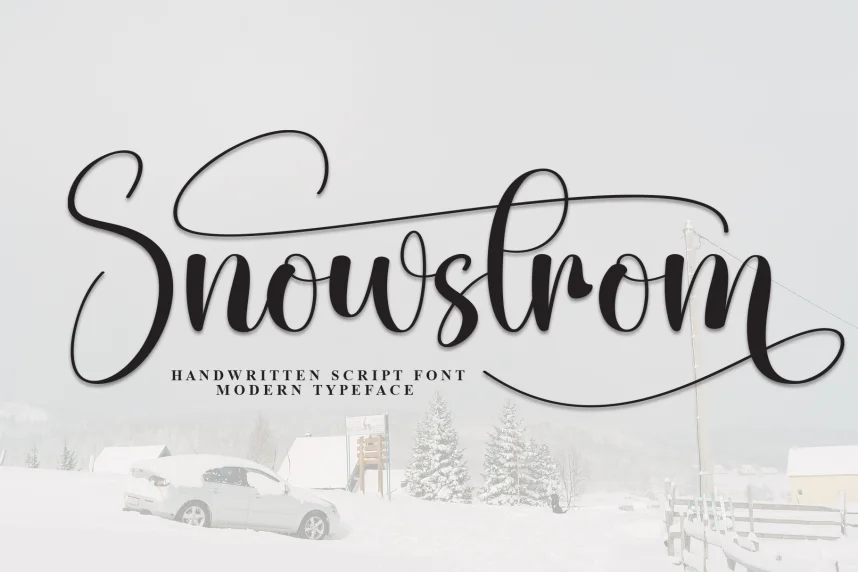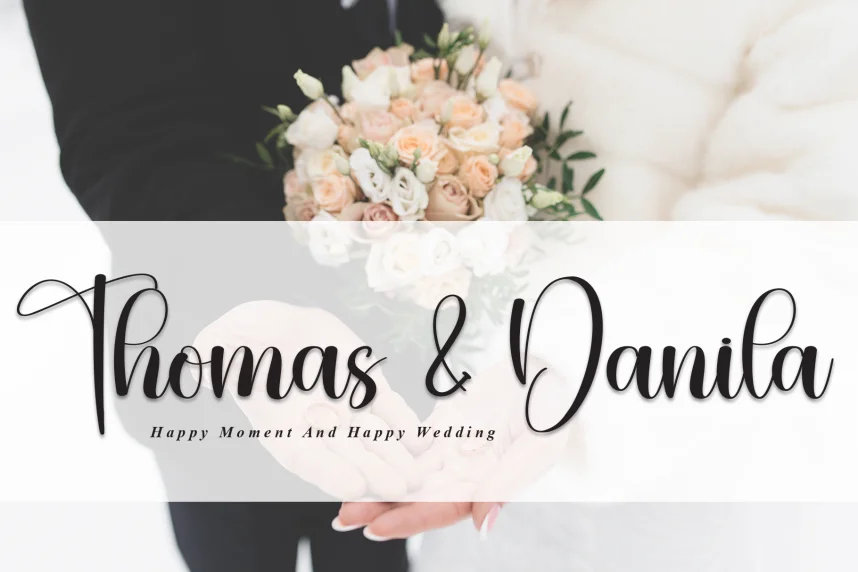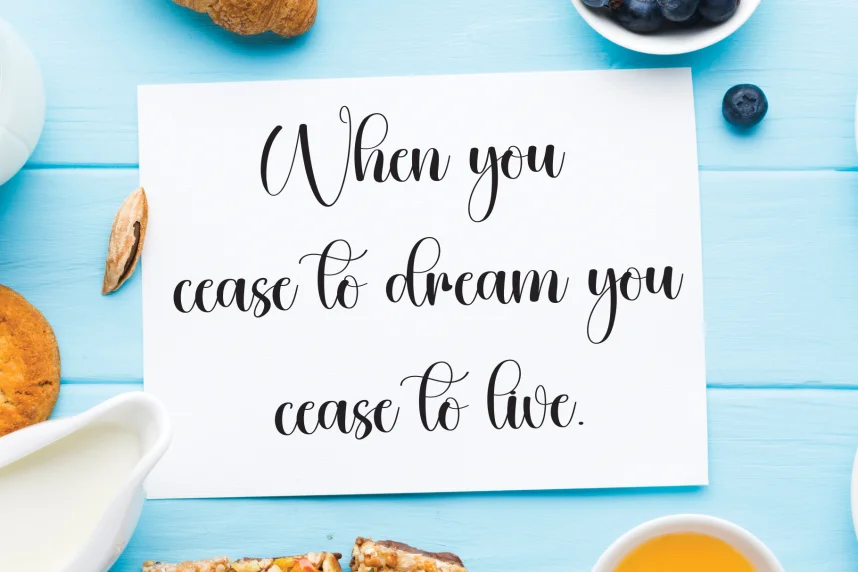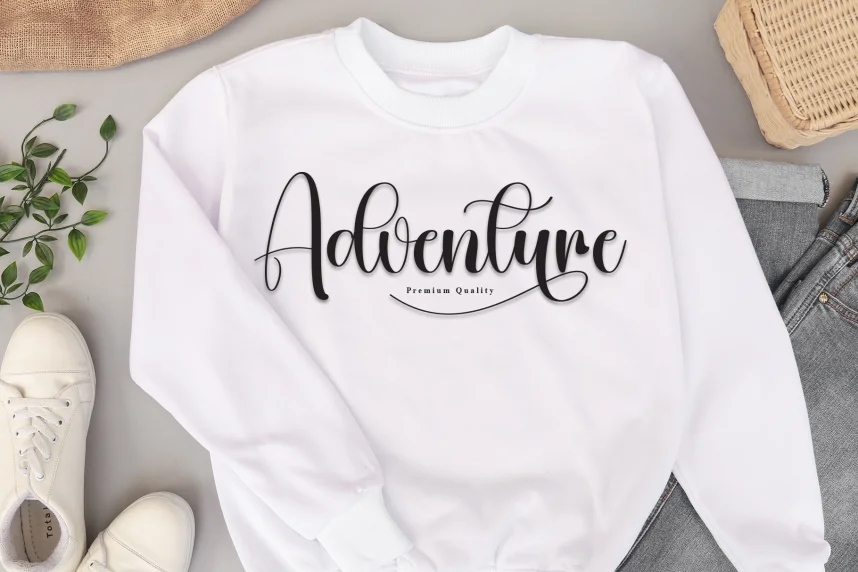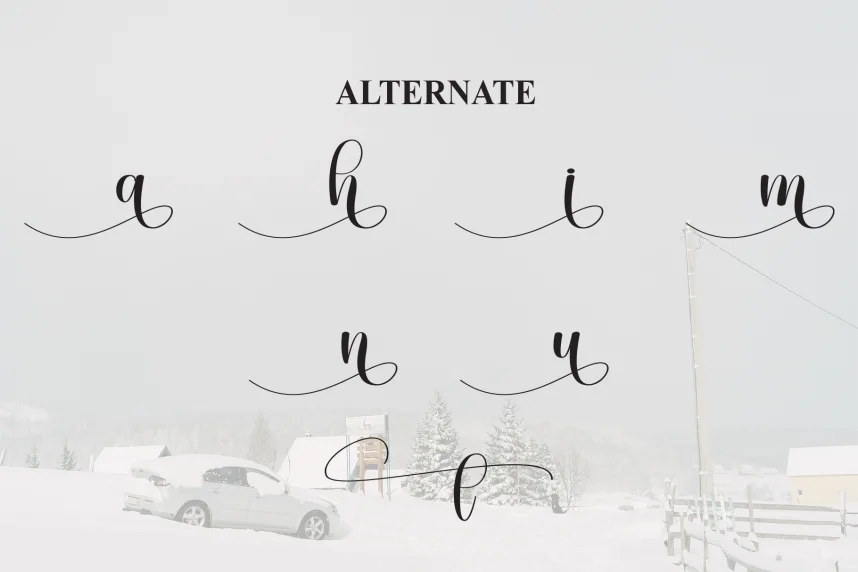
Snowstorm – Handwritten Script Font solves a common design problem: adding a personal, winter-inspired touch without compromising readability. It is often used in seasonal projects that require a handwritten feel.
Snowstorm is a script font with natural, flowing strokes, combining casual letterforms with a subtle texture that mimics handwriting. The font features slightly irregular curves and rounded edges, which create a relaxed, welcoming visual impression.